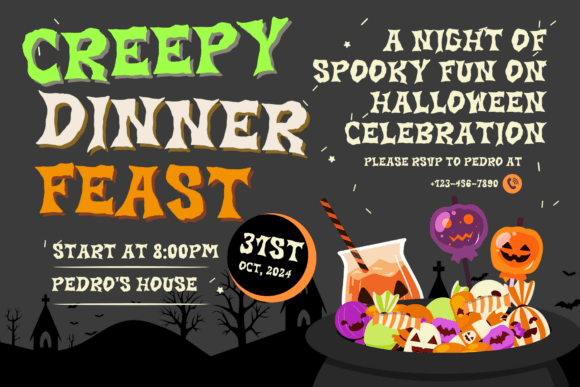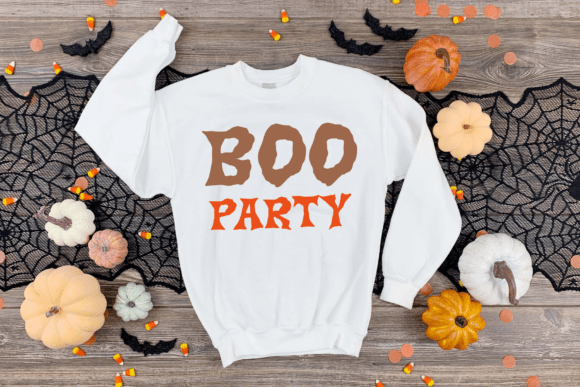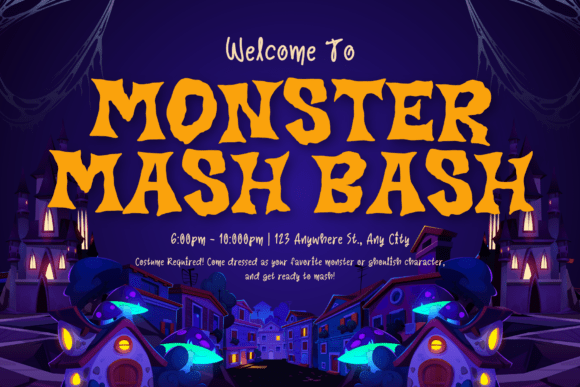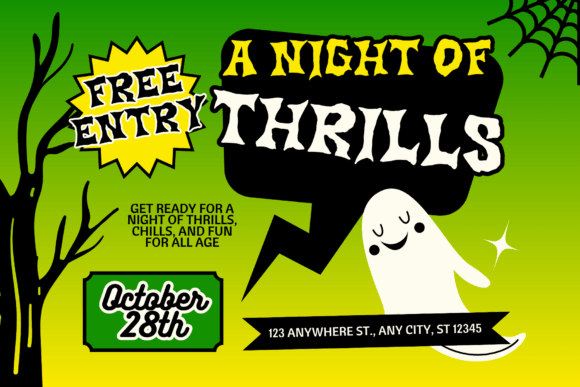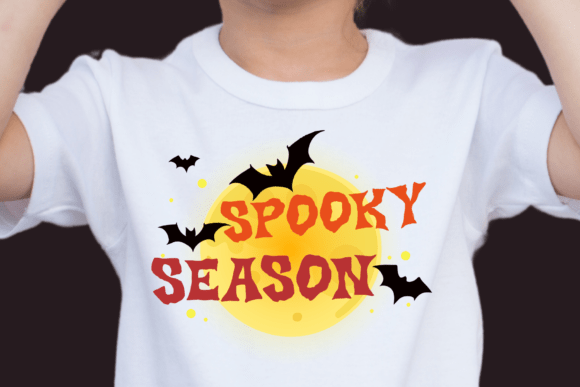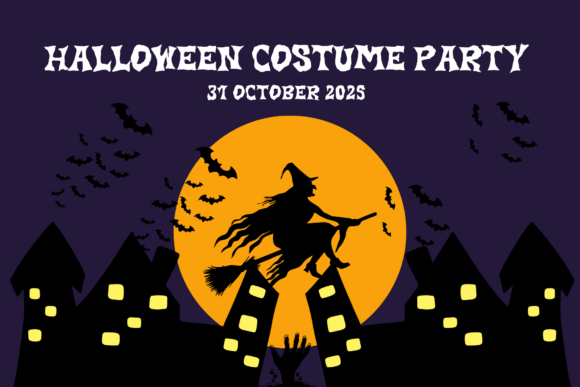
Unleash the Spookiness: A Comprehensive Guide to Haunted Letters Font
As the witching hour approaches, designers and crafters are on the lookout for the perfect font to add a touch of eerie elegance to their Halloween-themed projects. Look no further than the Haunted Letters Font, a spellbinding typeface that’s sure to cast a spell on your audience. In this article, we’ll dive into the world of Haunted Letters, exploring its features, uses, and benefits, as well as provide tips and inspiration for incorporating it into your designs.
What is Haunted Letters Font?
Haunted Letters Font is a Halloween decorative font that embodies the perfect blend of playfulness and authenticity. This charming typeface is designed to evoke the spirit of the spooky season, with intricate details and a whimsical flair that’s sure to delight. Whether you’re creating blog posts, logos, branding materials, ads, invitations, greeting cards, planners, photo albums, or decorations, Haunted Letters Font is the perfect choice.
Features of Haunted Letters Font
So, what makes Haunted Letters Font so special? Here are just a few of its standout features:
- Playful and Authentic: Haunted Letters Font strikes the perfect balance between playfulness and authenticity, making it suitable for a wide range of projects and audiences.
- Highly Versatile: From blog posts and social media graphics to logos, branding materials, and invitations, Haunted Letters Font can be used in a variety of contexts.
- Eerie Elegance: With its intricate details and whimsical flair, Haunted Letters Font adds a touch of spooky sophistication to any design.
Uses of Haunted Letters Font
The possibilities are endless when it comes to using Haunted Letters Font. Here are just a few ideas to get you started:
- Halloween-themed Designs: Create spooky invitations, decorations, and graphics for Halloween parties, events, and celebrations.
- Blog Posts and Articles: Add a touch of Halloween flair to your blog posts and articles with Haunted Letters Font.
- Logos and Branding: Use Haunted Letters Font to create eye-catching logos and branding materials for Halloween-themed businesses or events.
- Social Media Graphics: Create spooky social media graphics, including Facebook posts, Twitter headers, and Instagram stories.
- Invitations and Greeting Cards: Design beautiful and spooky invitations and greeting cards for Halloween celebrations.
Tips for Using Haunted Letters Font
Here are a few tips for getting the most out of Haunted Letters Font:
- Experiment with Colors: Try pairing Haunted Letters Font with a range of colors, from bold and bright to muted and pastel.
- Mix and Match Fonts: Combine Haunted Letters Font with other fonts to create visually interesting and dynamic designs.
- Play with Texture and Pattern: Add texture and pattern to your designs with Haunted Letters Font, using techniques like layering and blending.
- Keep it Simple: Don’t be afraid to keep things simple and elegant with Haunted Letters Font – sometimes less is more.
Need some inspiration for your Haunted Letters Font projects? Here are a few ideas to get you started:
- Spine-tingling Invitations: Create spooky invitations for Halloween parties, complete with Haunted Letters Font and eerie imagery.
- Eerie Elegance: Design beautiful and sophisticated Halloween-themed graphics, using Haunted Letters Font and a range of textures and patterns.
- Haunted House Decor: Use Haunted Letters Font to create spooky decorations for haunted houses, complete with creepy signs and eerie lighting.